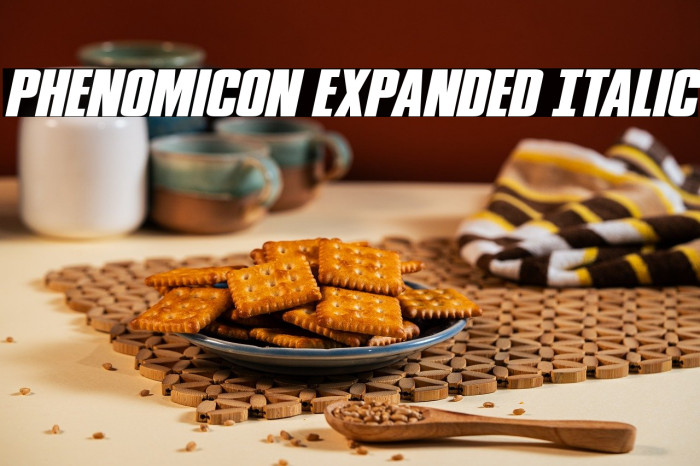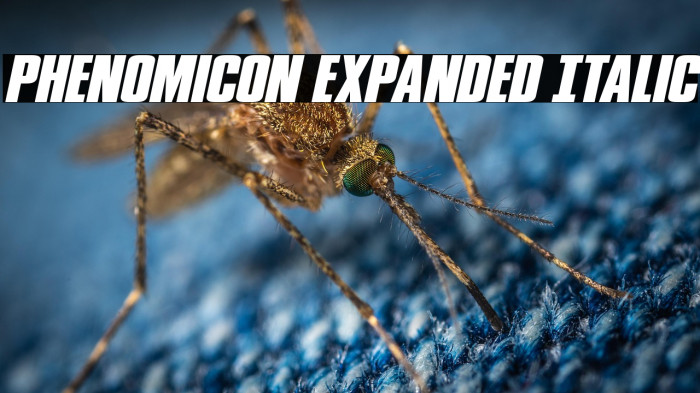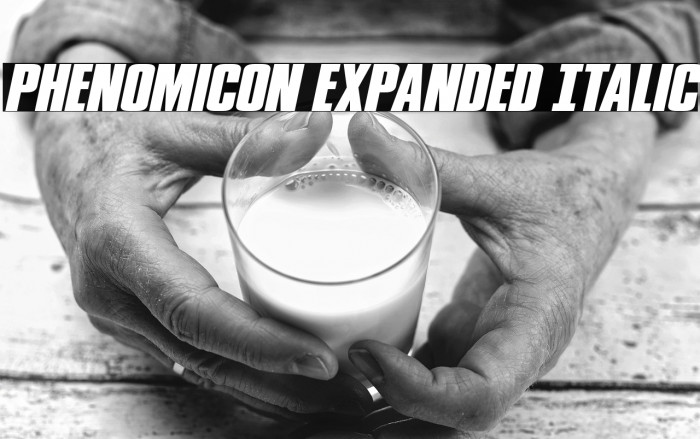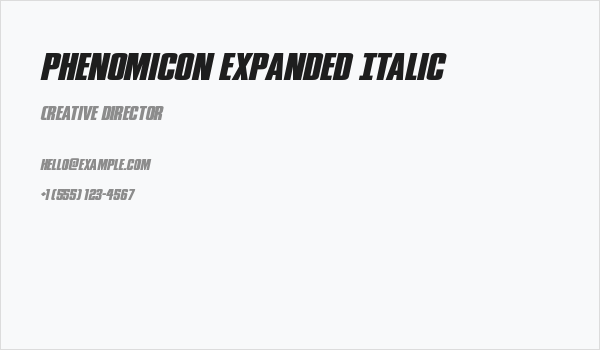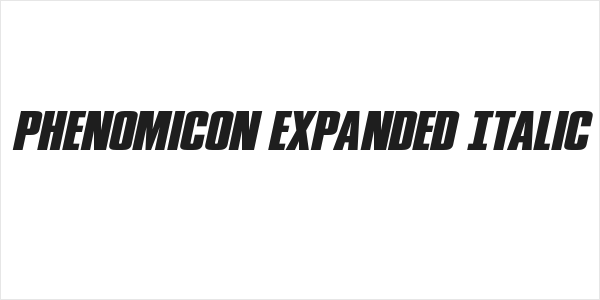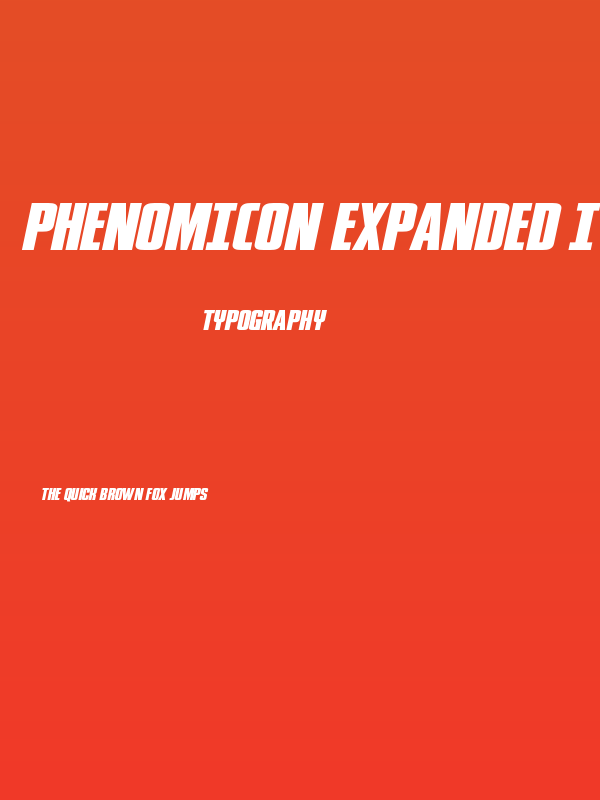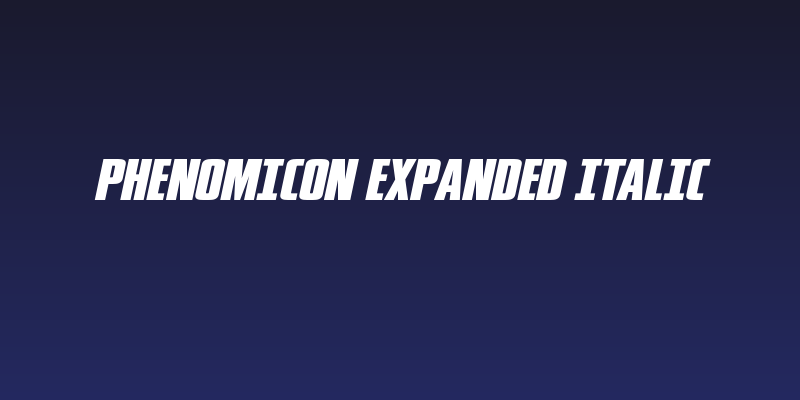
Phenomicon Expanded Italic Font
Phenomicon Expanded Italic Description
This font features a bold and dynamic style with an italic slant, giving it a sense of motion and urgency. The characters are expanded, providing a wide stance that enhances readability and impact. The strokes are thick and consistent, contributing to a strong visual presence. The uppercase and lowercase letters maintain a uniform design, ensuring cohesion across different text sizes. The numerals and special characters are crafted with the same attention to detail, making them suitable for various design applications. The overall aesthetic is modern and assertive, ideal for projects that require a bold statement.
| Proposed Projects | Ideal for sports branding, dynamic posters, impactful headlines, and modern advertising campaigns. |